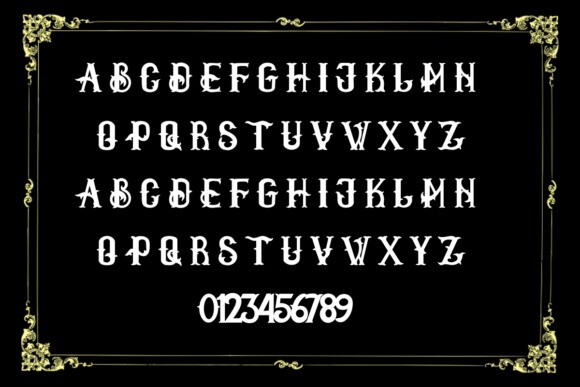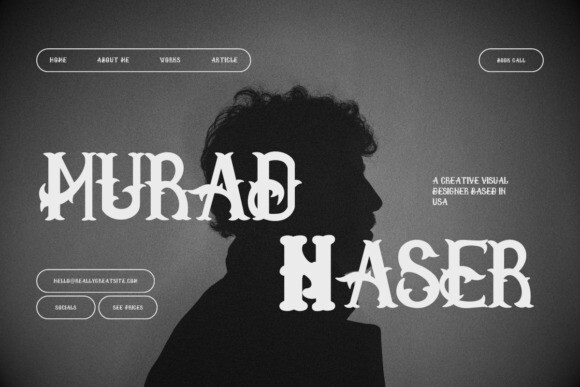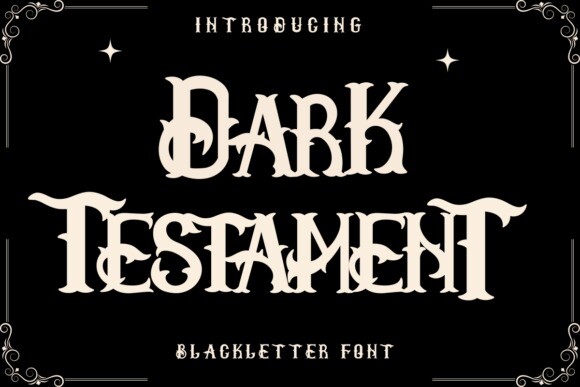
Dark Testament Font
Designer: Prosperity Art
Dark Testament Font is a bold and thick lettered blackletter font. Add it confidently to your projects, and you will love the results.